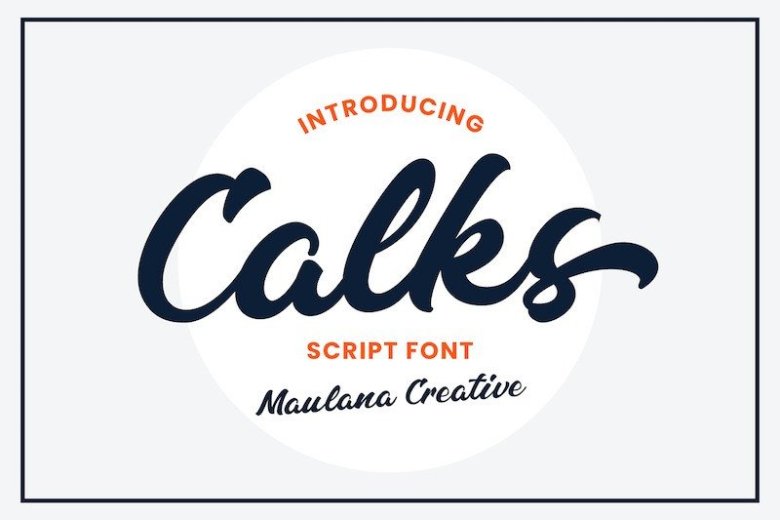
Calks Font
Calks Script Font is a bold script Font created by Maulana Creative with a natural & stylish flow. This collection of scripts is perfect for personal branding. this works well for many applications. Everything from personal branding & wedding invitations to advertising could benefit from this collection of signature font.